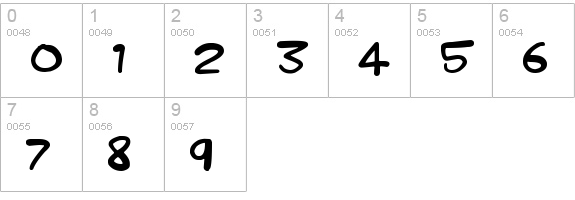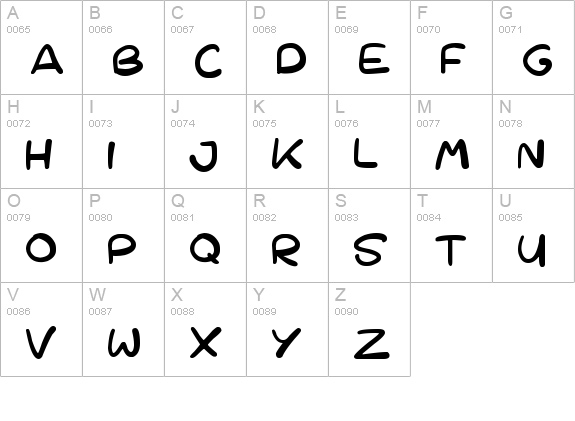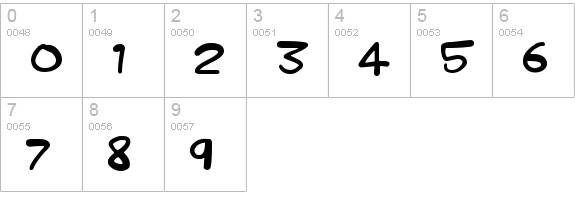
Cartoons 123 Font Details
Cartoons 123 is a donationware font in the Fancy > Comic category, designed by Darrell Flood. It has been downloaded 65 times and is available for Windows, Mac and Linux.
Cartoons 123 font is a whimsical and playful typeface that brings a touch of fun to any design project. With its bold and cheerful characters, this font is perfect for creating eye-catching posters, invitations, and more. Whether you're working on a children's book or a special event, Cartoons 123 font is sure to add a dose of lighthearted charm.